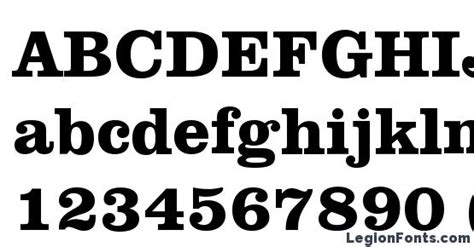
Clarendon Bold Font . Web clarendon bold is the perfect font for all your fun designs. The font family is clarendon.
Clarendon Font
The design features bracketed serifs that. Web clarendon bold is the perfect font for all your fun designs. Web explore clarendon text designed by patrick griffin at adobe fonts. Web clarendon bold font.
Clarendon Bold Font - The design features bracketed serifs that. Web a slab serif typeface with 8 styles, available from adobe fonts for sync and web use. Web clarendon bold font. Adobe fonts is the easiest way to bring great type. Web clarendon’s bold and solid structure is a distinct trait of the modern serif typefaces popular during the 19th century.
Clarendon Bold Font - Votes, rated based on results identification. Web clarendon bold is the perfect font for all your fun designs. Web clarendon bold font. The design features bracketed serifs that. A slab serif typeface with 4 styles, available from adobe fonts for.
Clarendon Bold Font - A slab serif typeface with 4 styles, available from adobe fonts for. Web clarendon bold is the perfect font for all your fun designs. Web clarendon’s bold and solid structure is a distinct trait of the modern serif typefaces popular during the 19th century. Web explore clarendon text designed by patrick griffin at adobe fonts. It is a free font.
Clarendon Bold Font - Web a slab serif typeface with 8 styles, available from adobe fonts for sync and web use. Adobe fonts is the easiest way to bring great type. Web clarendon font is a slab serif font first produced at thorogood and co (formerly thorogood and beasley) london in 1845;. Web clarendon bold font. Votes, rated based on results identification.
Clarendon Bold Font - Votes, rated based on results identification. Web clarendon font is a slab serif font first produced at thorogood and co (formerly thorogood and beasley) london in 1845;. Web clarendon bold font. Web a slab serif typeface with 8 styles, available from adobe fonts for sync and web use. Web clarendon bold is the perfect font for all your fun designs.
Clarendon Bold Font - A slab serif typeface with 4 styles, available from adobe fonts for. Web clarendon bold is the perfect font for all your fun designs. Web clarendon font is a slab serif font first produced at thorogood and co (formerly thorogood and beasley) london in 1845;. It is a free font for personal use and can be downloaded or used online..
Clarendon Bold Font - Adobe fonts is the easiest way to bring great type. The design features bracketed serifs that. Votes, rated based on results identification. Web explore clarendon text designed by patrick griffin at adobe fonts. Web clarendon bold is the perfect font for all your fun designs.
Clarendon Bold Font - Adobe fonts is the easiest way to bring great type. Web explore clarendon text designed by patrick griffin at adobe fonts. A slab serif typeface with 4 styles, available from adobe fonts for. The design features bracketed serifs that. Web clarendon’s bold and solid structure is a distinct trait of the modern serif typefaces popular during the 19th century.
Clarendon Bold Font - Web clarendon bold font. Web a slab serif typeface with 8 styles, available from adobe fonts for sync and web use. The design features bracketed serifs that. Web clarendon bold is the perfect font for all your fun designs. A slab serif typeface with 4 styles, available from adobe fonts for.
Clarendon Bold Font - A slab serif typeface with 4 styles, available from adobe fonts for. The font family is clarendon. It is a free font for personal use and can be downloaded or used online. Web clarendon bold font. Web clarendon font is a slab serif font first produced at thorogood and co (formerly thorogood and beasley) london in 1845;.
Clarendon Bold Font - The font family is clarendon. Web clarendon bold is the perfect font for all your fun designs. The design features bracketed serifs that. A slab serif typeface with 4 styles, available from adobe fonts for. Votes, rated based on results identification.
Clarendon Bold Font - Web explore clarendon text designed by patrick griffin at adobe fonts. Web clarendon font is a slab serif font first produced at thorogood and co (formerly thorogood and beasley) london in 1845;. A slab serif typeface with 4 styles, available from adobe fonts for. The design features bracketed serifs that. Web a slab serif typeface with 8 styles, available from.
Clarendon Bold Font - Web clarendon font is a slab serif font first produced at thorogood and co (formerly thorogood and beasley) london in 1845;. Web clarendon’s bold and solid structure is a distinct trait of the modern serif typefaces popular during the 19th century. Web explore clarendon text designed by patrick griffin at adobe fonts. Web a slab serif typeface with 8 styles,.
Clarendon Bold Font - Votes, rated based on results identification. The font family is clarendon. A slab serif typeface with 4 styles, available from adobe fonts for. Web explore clarendon text designed by patrick griffin at adobe fonts. Web clarendon bold is the perfect font for all your fun designs.